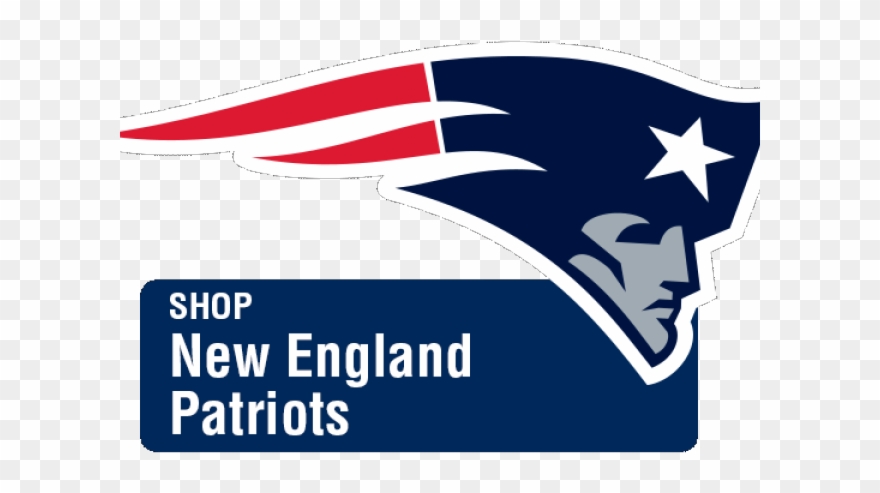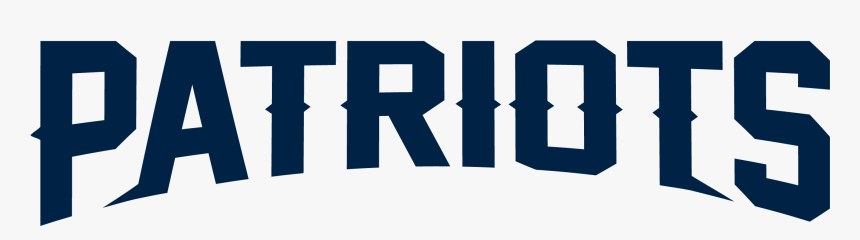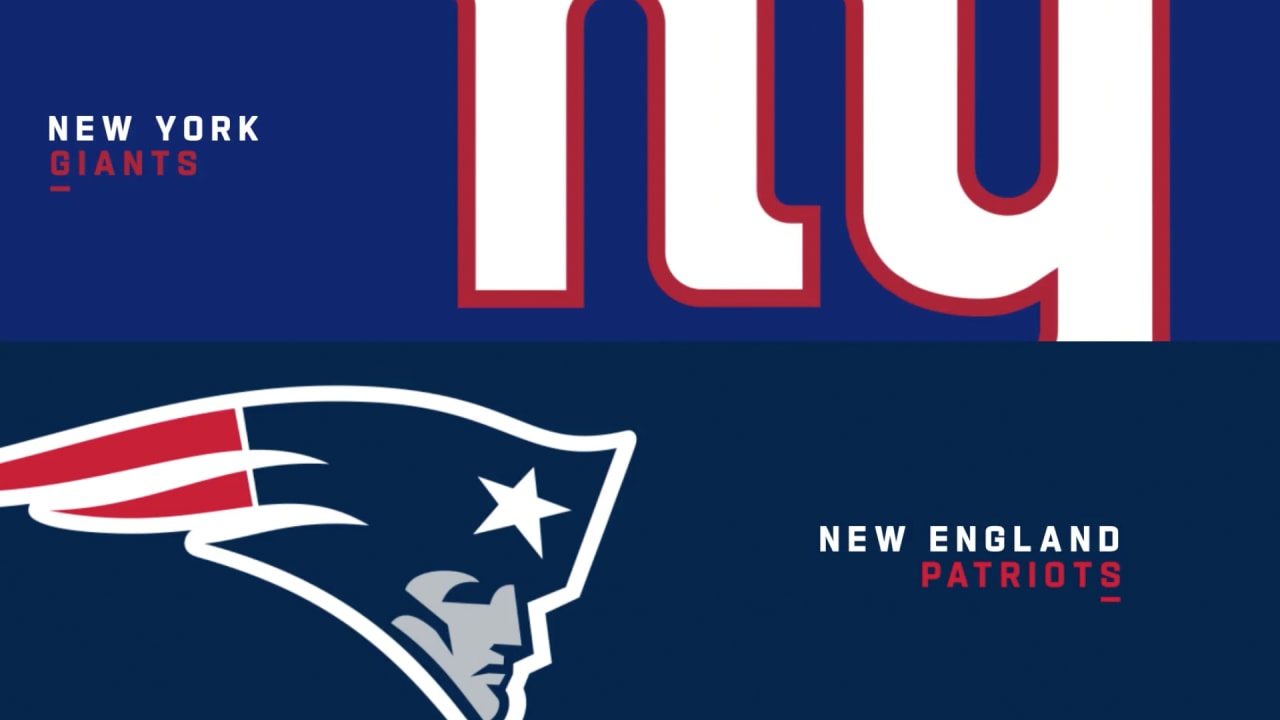
'; New England Patriots Font Logo
Free alternative fonts for new england patriots logo.
New england patriots font logo. Sep 16 2018 download the free font replicating the new england patriots logo and many more at the original famous fonts. Download free fonts for new england patriots logo. Wordmark patriots in navy blue letters with team logo in the center below. The closest font you can get for the new england patriots logo is belinda font.
The closest free font you can get is lobstertwo italic font. Home sports new england patriots legend m54 by mohammed rahman a font based on the new england patriots logo click here to download. What font does new england patriots use.